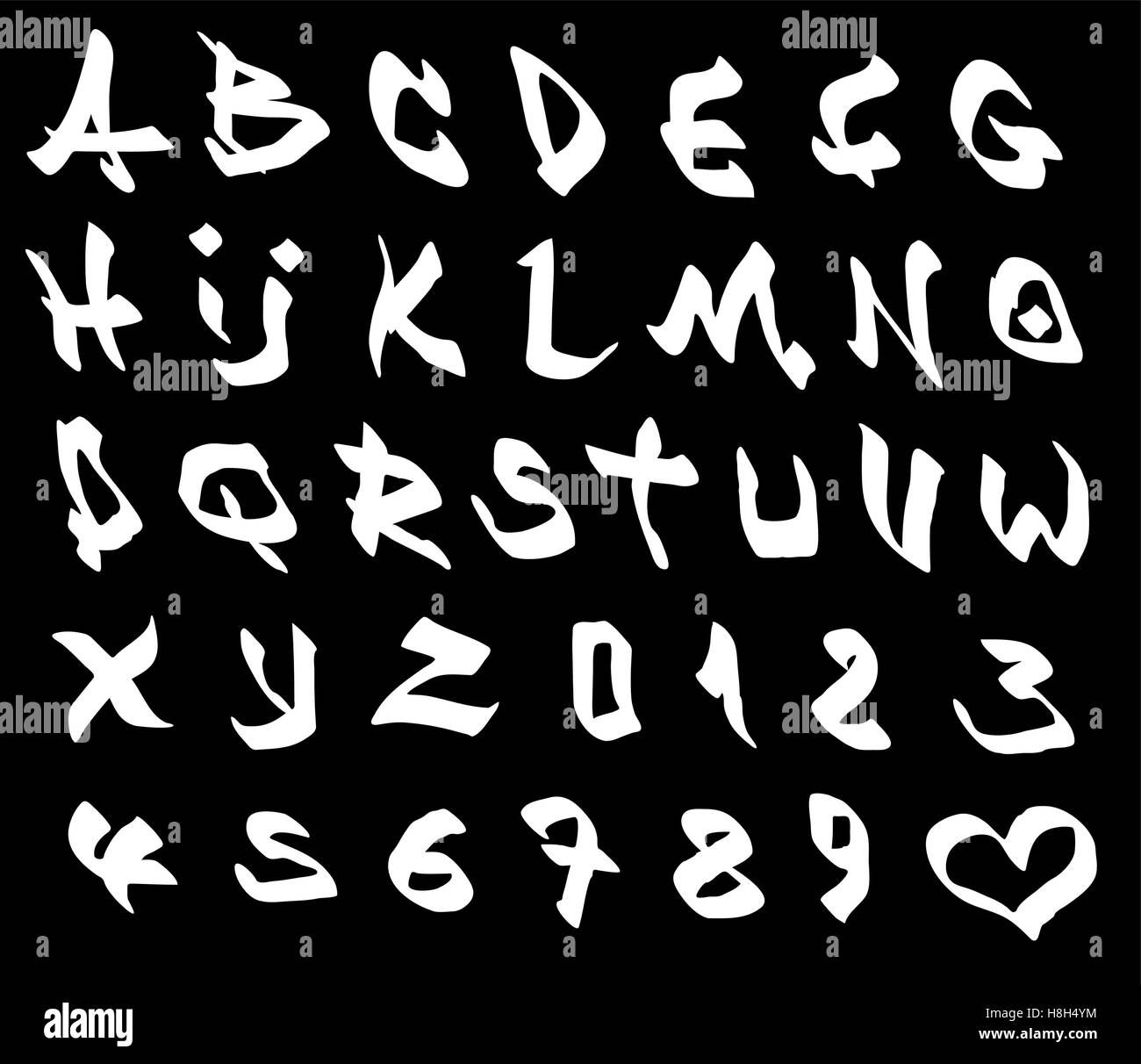
Graffiti Numbers Font: Bold Typography for Urban Style
Discover the edgy appeal of graffiti numbers font for street art, branding, and creative projects. Elevate your designs with authentic urban flair.
In the vibrant world of street art, graffiti numbers fonts bring raw energy and bold identity to designs. These dynamic typefaces transform ordinary digits into striking visual statements that capture attention and convey urban culture.
H2 Bold Urban Typography with Graffiti Numbers
Graffiti numbers fonts mimic the hand-scrawled, layered aesthetic of real urban murals, blending sharp angles, uneven edges, and expressive textures. Unlike traditional numeric fonts, they carry cultural weight—evoking subway tags, block parties, and underground creativity. Ideal for streetwear, posters, and digital art, these fonts turn simple digits into powerful visual elements that speak to authenticity and youth culture.
H2 Versatility Across Creative Projects
Whether used in branding, event signage, or personal design, graffiti numbers fonts add instant character. Designers leverage their chaotic yet intentional look to craft logos, album covers, and social media graphics that stand out. Their adaptability makes them perfect for both digital and print mediums, delivering a bold, authentic voice that resonates with modern audiences.
H2 Crafting Authenticity in Design
Choosing a graffiti numbers font means embracing imperfection as strength. The best options balance structured chaos with expressive stroke variation, evoking the spirit of authentic street art. Pairing these fonts with complementary color palettes and textures deepens the urban vibe, making every project feel fresh, dynamic, and culturally rooted.
Let graffiti numbers fonts transform your creative vision into bold, streetwise statements. Explore authentic typefaces that bring urban energy to your designs—your next project deserves the grit and glamour of true graffiti spirit.